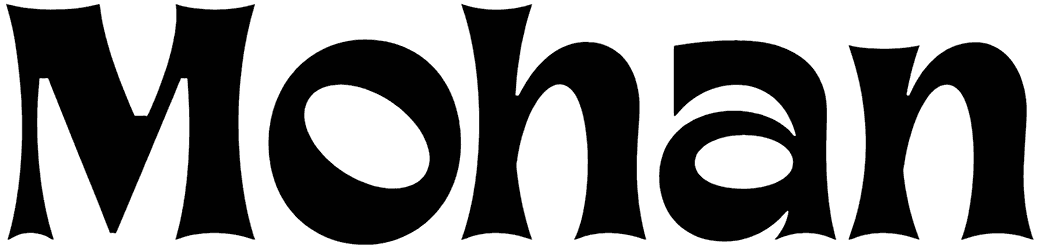
Mohan Font
Mohan is a groovy font with a modern and playful look that is hard to miss. This fancy font allows you to change the design according to your branding needs and create something truly unique and out of the box.
You can put all your creative ideas in the field of children’s posters and computer games into practice using this cartoon font and create a distinctive part of your resume that will make anyone want to place further orders.